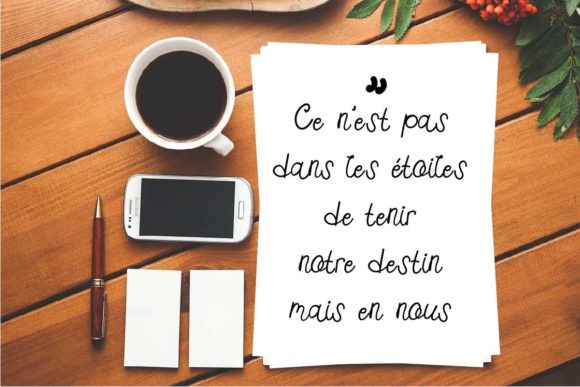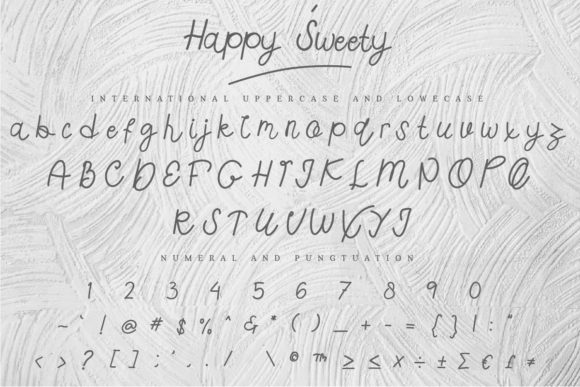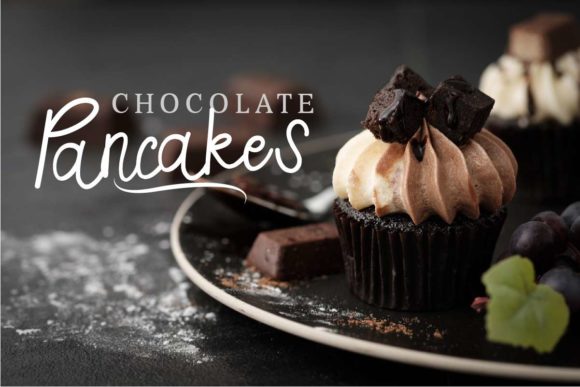
Introduction to Happy Sweety Font
Do you remember that moment when you stumble upon the perfect font for your creative project, and everything just clicks into place? For designers, finding the right font can be a game-changer, elevating a simple design to a work of art. It’s a feeling that’s hard to describe, but when you find the perfect font, you know it – and that’s exactly what the Happy Sweety Font does.
This gorgeously light and charming script font radiates authenticity, making it the perfect addition to any design project. With its transparent background and high-quality design, it’s no wonder why Happy Sweety Font has become a go-to resource for designers looking to add a touch of elegance to their work. And the best part? It’s available for free download, making it an accessible design resource for creatives of all levels.
Whether you’re working on a personal project or a commercial campaign, the Happy Sweety Font is sure to bring a smile to your face and a touch of magic to your design.
Key Features of Happy Sweety Font
- High-quality font design with a transparent background, perfect for creative projects that require a delicate touch.
- Designed to be highly legible, with a clear and elegant script that’s ideal for use in various contexts, from invitations to social media graphics.
- Unique characteristics include a playful, cursive feel and a wide range of stylistic alternates, allowing for endless creative possibilities.
- Perfect for designers, artists, and crafters working on creative projects, such as wedding invitations, greeting cards, and other paper crafts.
Honest Review: Happy Sweety Font
I recently had the chance to try out the Happy Sweety Font, and I must say it’s been a game-changer for my creative projects. As a designer, I’m always on the lookout for high-quality design resources that can elevate my work.
However, there are a few limitations to consider. The font selection is relatively limited, and some of the styles may not be suitable for all design projects.
- ⚠️ Some styles may not be suitable for all design projects
Overall, I’m impressed with the Happy Sweety Font. It’s a great resource for designers looking to add a touch of whimsy to their creative projects. With its high-quality design and transparent background option, it’s definitely worth checking out.
Happy Sweety Font
The Happy Sweety Font is a high-quality design resource perfect for creative projects that require a playful touch. This font can be downloaded for free, making it an excellent addition to any designer’s toolkit.
For the best results, use the Happy Sweety Font on a transparent background to give your design a clean and modern look. Experiment with different font sizes and styles to add visual interest to your project.
The Happy Sweety Font is perfect for a variety of creative projects, including social media graphics, flyers, posters, and custom graphics. This font is also great for designing children’s products, such as stickers, coloring books, and party invitations.